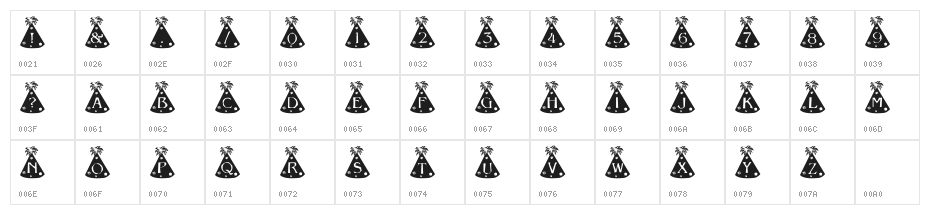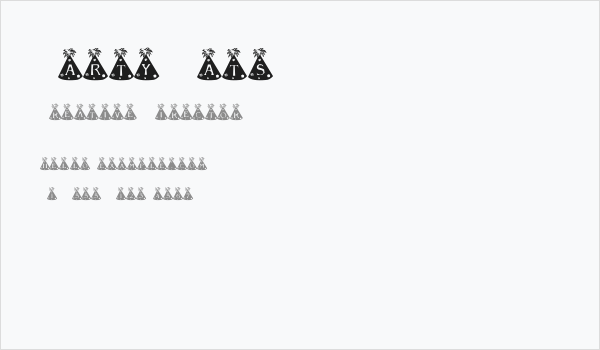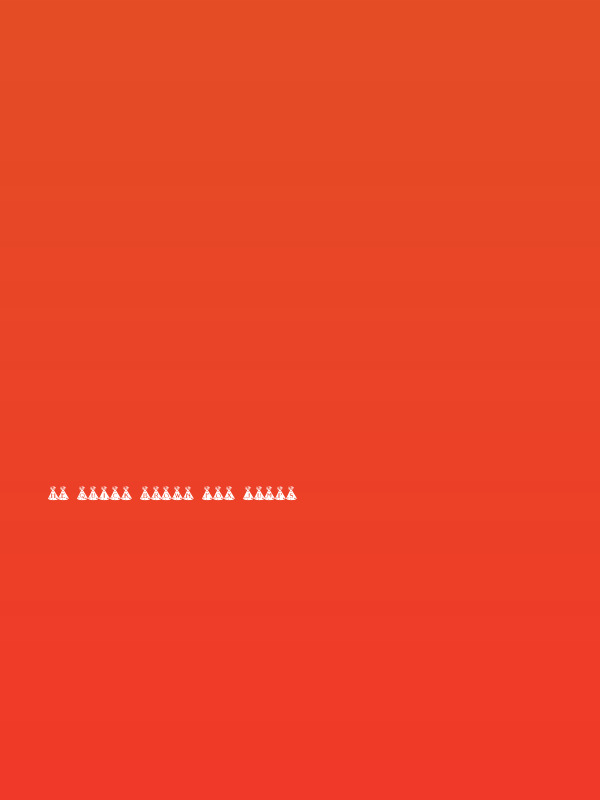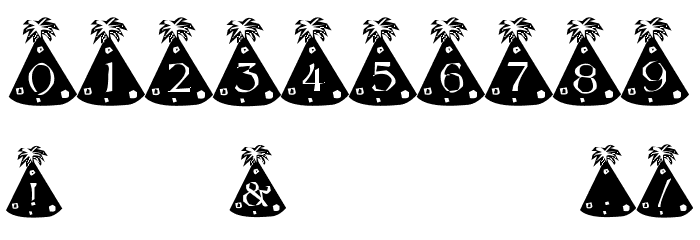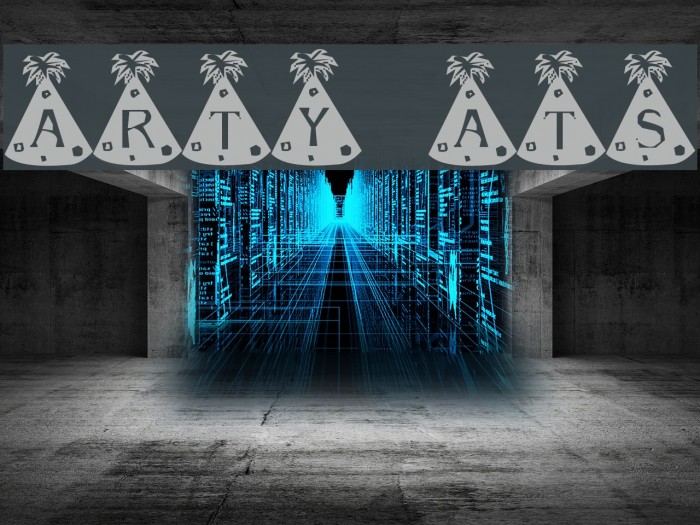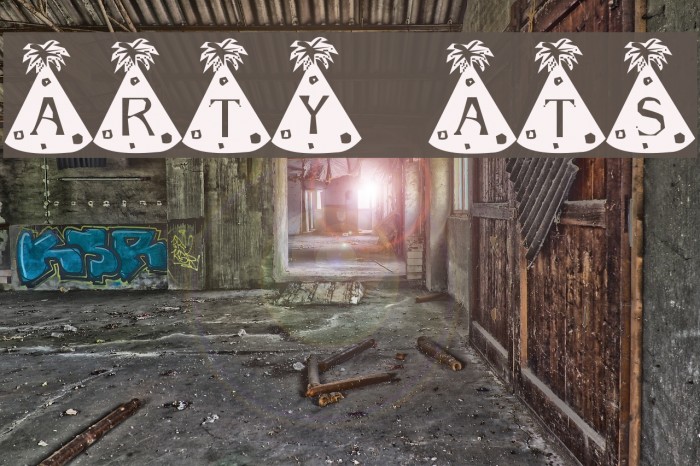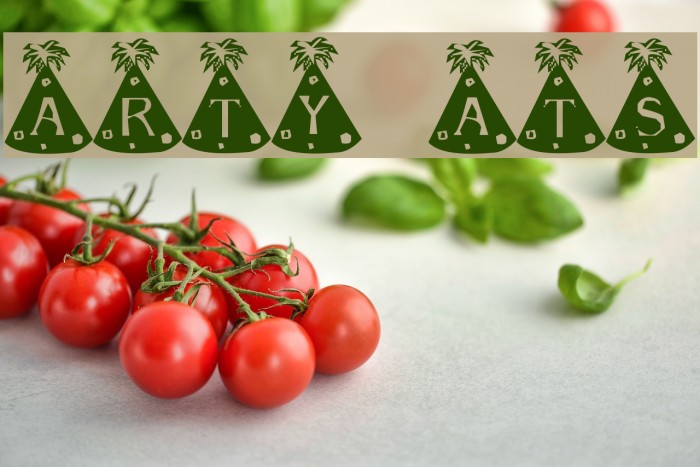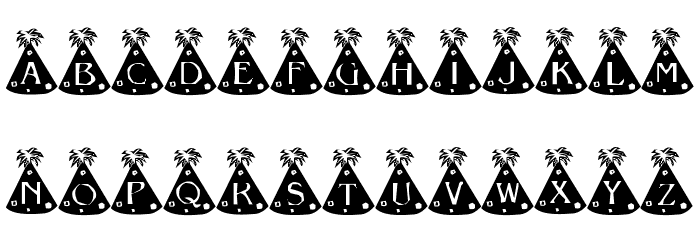
Party Hats Font
Party Hats Description
This playful and whimsical font features characters enclosed in party hat shapes, complete with a pom-pom on top. The letters and numbers are bold and clear, making them easily readable despite the decorative elements. Each character is centered within the hat, which is adorned with small circular decorations, adding to the festive theme. The font exudes a sense of celebration and joy, perfect for party invitations or festive announcements. Its unique design ensures that it stands out, making it ideal for projects that require a fun and engaging visual element.
| Proposed Projects | Ideal for party invitations, festive banners, birthday cards, and celebratory event posters. |